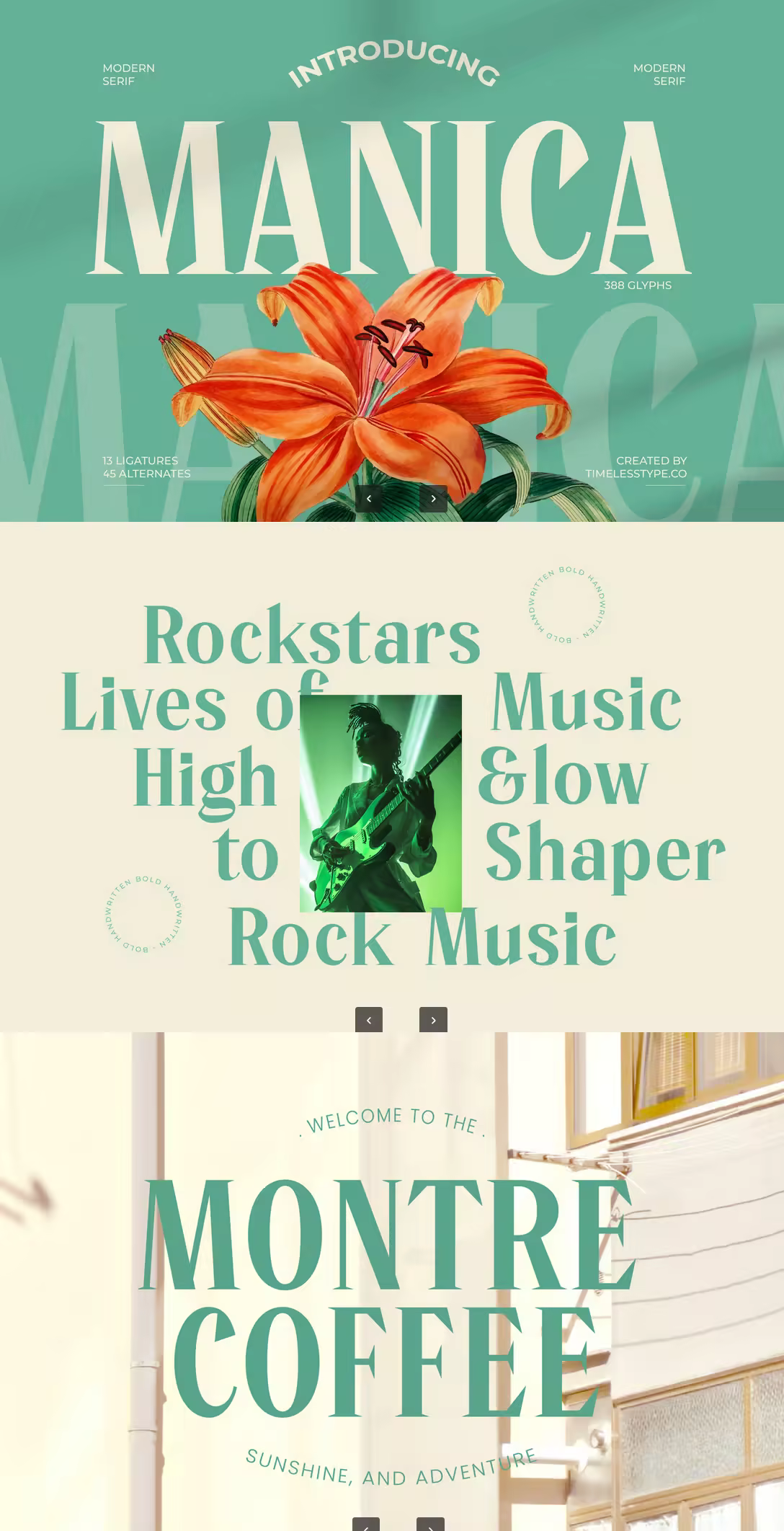
Manica is a modern serif display font featuring tall proportions, refined contrast, and elegant sculpted letterforms. Its sophisticated structure blends classic serif with contemporary clarity, making it perfect for editorial design, luxury branding, packaging, wedding concepts, social media graphics, and stylish logo work. The font carries a clean, polished, and timeless aesthetic that enhances any visual project.
With 13 ligatures, 45 alternates, and a total of 388 glyphs, Manica provides designers with powerful creative flexibility for crafting expressive headlines, refined monograms, decorative layouts, and premium typographic compositions. Its graceful silhouette, balanced contrast, and versatile stylistic options make it an excellent choice for projects seeking elegance, simplicity, and modern sophistication.